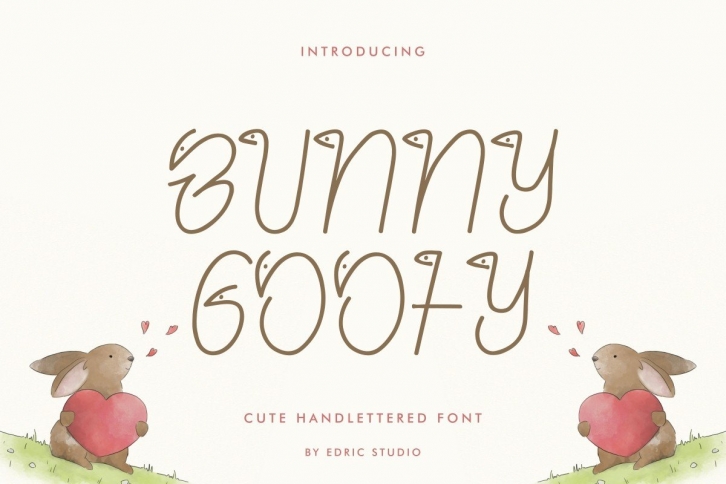
Bunny Goofy is a whimsical, curly and charming script font. It is defined by smooth curves and is perfect for fashion branding or editorial designs. Add it confidently to your projects, and you will love the results.Â